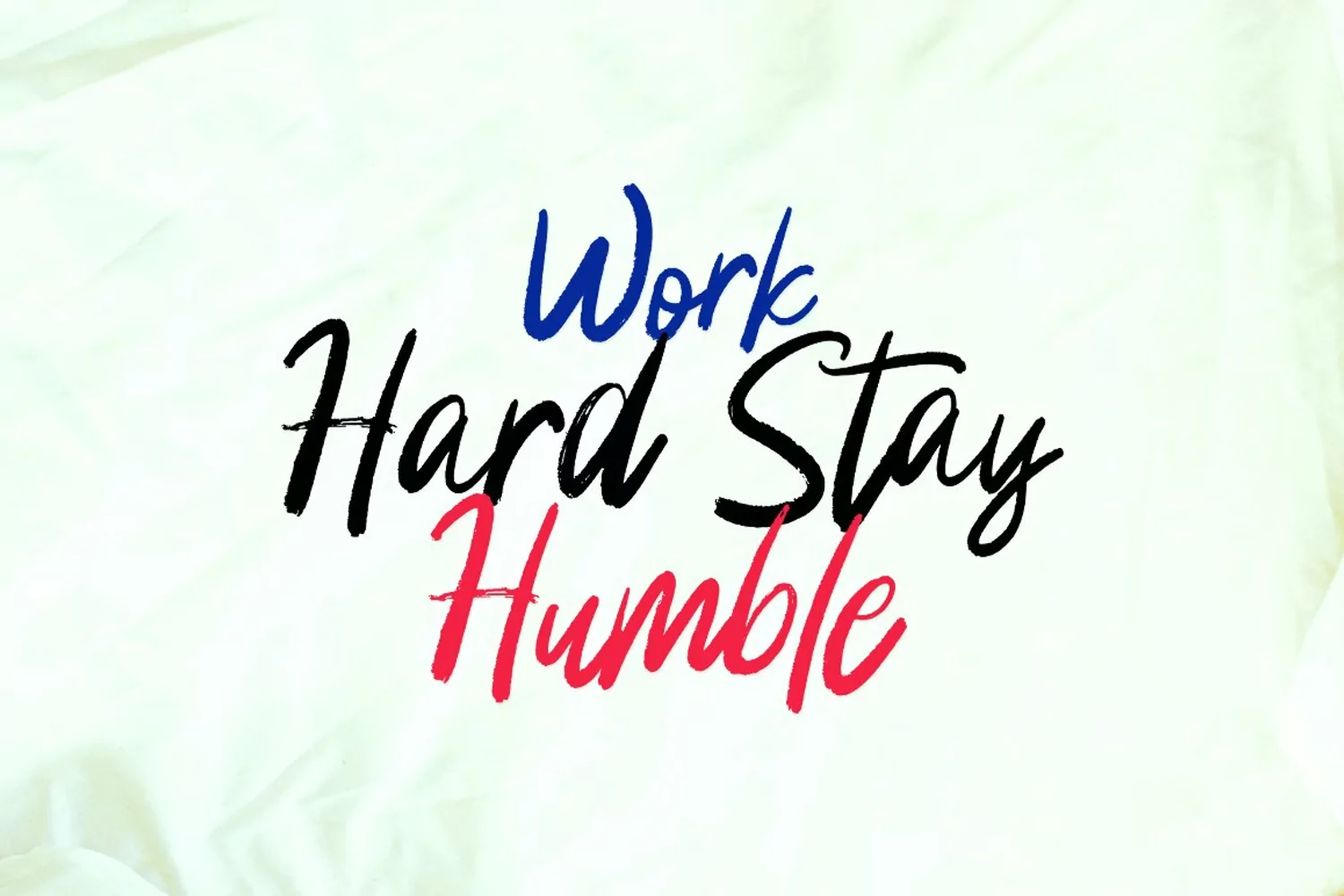
Heliconia is a super casual hand brushed script with detailed brush stroke texture,
and a quirky, Can be used for various purposes. such as the title, signature, letterhead,